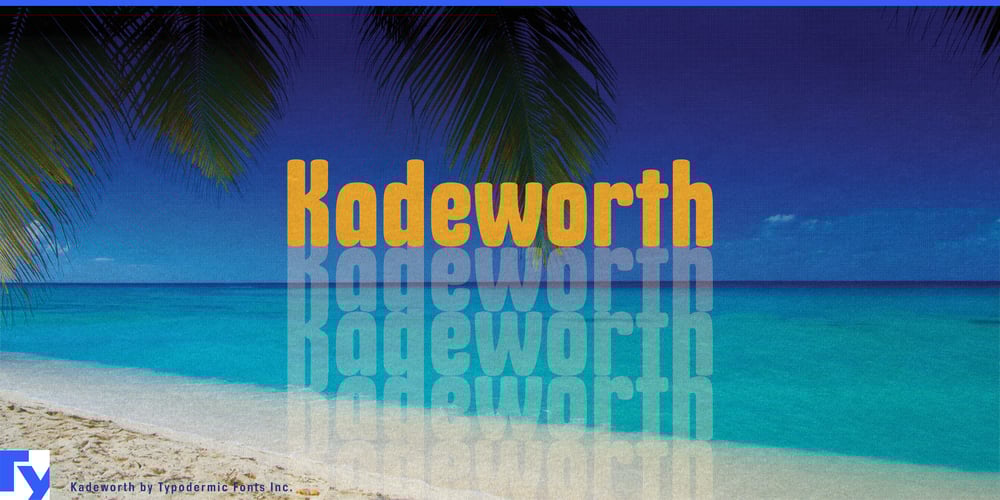
Kadeworth Font Family was designed by Ray Larabie, Chikako Larabie and published by Typodermic. Kadeworth contains 1 styles and family package options. Kadeworth emerges as a bold statement in contemporary typography, striking a masterful balance between assertiveness and approachability. This rounded sans-serif typeface commands attention with its confident presence, while simultaneously inviting engagement through its softer edges and warm character.At its core, Kadeworth embodies the spirit of modern design—clean, powerful, and unapologetically present. The typeface’s compact letterforms speak to efficiency and impact, making every character count in layouts where space is at a premium. This quality renders Kadeworth particularly effective for headlines, logotypes, and impactful statements that need to leave a lasting impression at a glance. Yet, what truly sets Kadeworth apart is its ability to project strength without sacrificing warmth. The rounded terminals and smooth curves inject a human touch into its tech-forward aesthetic, creating a visual voice that resonates in our increasingly digital world. This duality allows Kadeworth to navigate seamlessly between cutting-edge tech branding and more personable lifestyle applications, offering designers a versatile tool for a wide range of projects.Kadeworth’s linguistic versatility further enhances its appeal. Supporting an extensive array of Latin-based European writing systems, it stands ready to communicate across borders and cultures with consistency and clarity. From the bustling streets of Berlin to the sun-drenched plazas of Madrid, from the fjords of Norway to the shores of the Black Sea, Kadeworth speaks with a unified voice, ensuring your message retains its impact regardless of the language. Whether you’re crafting a bold identity for a tech startup, designing an engaging user interface, or creating editorial layouts that demand attention, Kadeworth offers the perfect typographic solution. Its hi-tech voice carries well in digital environments, while its rounded charm adds a touch of humanity to even the most avant-garde designs.Embrace Kadeworth, and discover how its unique blend of boldness and approachability can elevate your creative projects. From sleek corporate communications to edgy editorial spreads, Kadeworth stands ready to articulate your vision with clarity, strength, and a touch of contemporary flair.